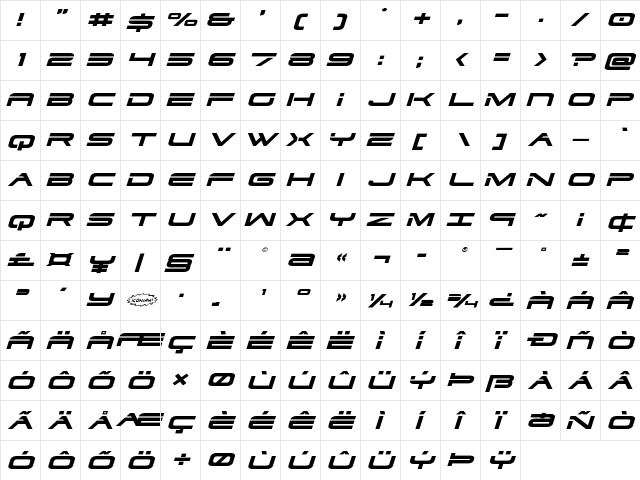
Dodger Expanded Italic Expanded Italic
Design Context for Dodger Expanded Italic Typeface
Dodger Expanded Italic is a composed and adaptable typeface that performs quietly and consistently across a wide range of design contexts. The dynamic lean of this cut emphasises speed and emphasis in any layout.
Pro Tip: Use Dodger Expanded Italic for emphasis, pull quotes, and subheadings where its slanted energy can add rhythm to the layout.